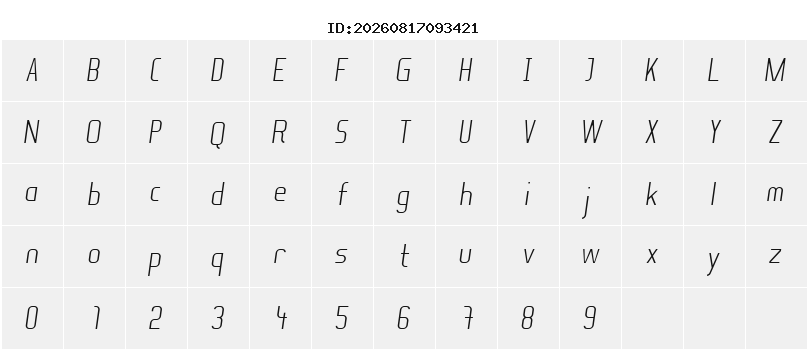
• Font Name: Soul Lotion
• Font Style: Light-Italic
• Designer: Manuel Viergutz
About Soul Lotion.ttf
Soul Lotion.ttf is a modern, elegant sans-serif font designed for ultimate readability and visual harmony. Perfect for branding, headlines, web design, and print materials.